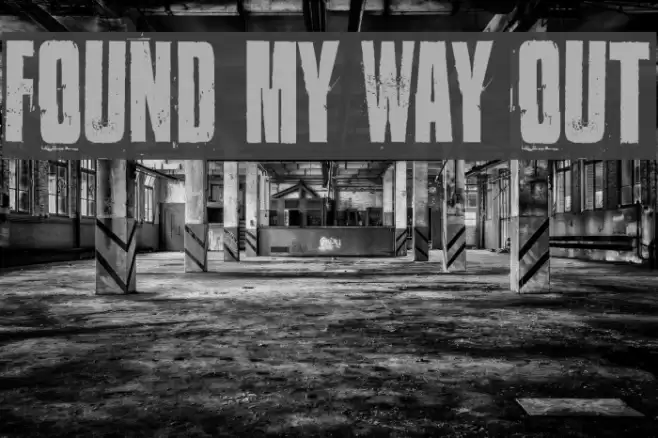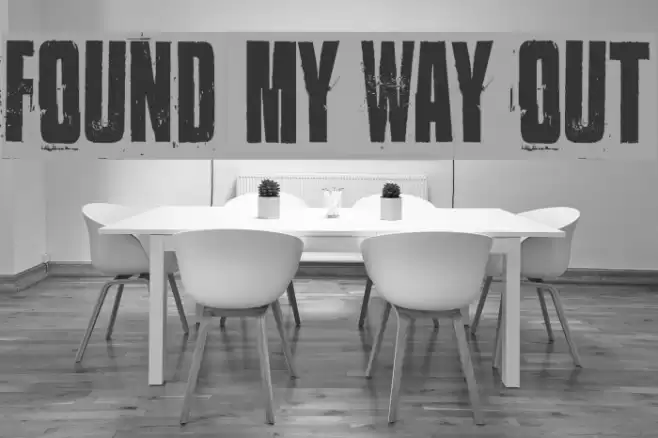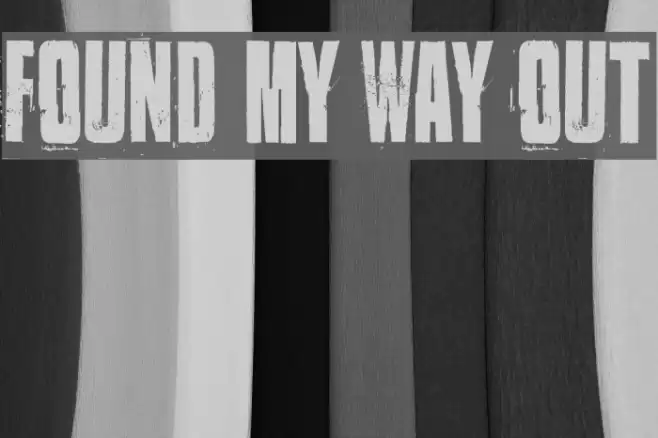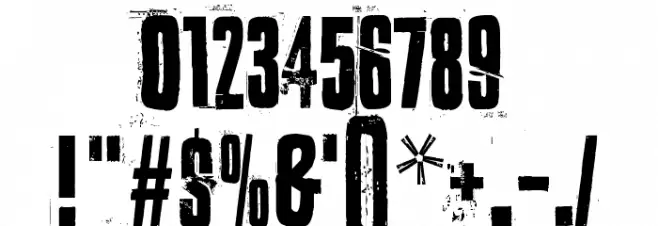
Found my way out Font
Found my way out Description
This font features a bold, distressed style with a rugged, grunge aesthetic. The characters are heavily textured, giving them a worn and weathered appearance. The uppercase and lowercase letters maintain a consistent height, contributing to a uniform look despite the distressed detailing. The numerals and special characters follow the same stylistic approach, ensuring cohesion across all glyphs. This font's boldness and unique texture make it stand out, ideal for projects that require a strong visual impact.
A bold, distressed font with a rugged, grunge aesthetic from Uncategorized fonts.
- Proposed Projects: Ideal for music album covers, posters, urban-themed designs, and branding that requires a gritty, edgy look.
- Overall Style: Grunge, Urban, Distressed
- Use Case: Headlines, Posters, Branding